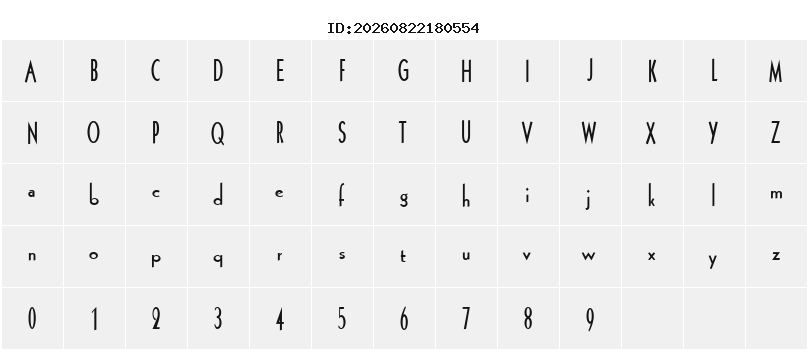
• Font Name: Schlimeyer Book
• Full Font Name: Schlimeyer Book
About Schlimeyer Book.ttf
Schlimeyer Book.ttf is a modern, elegant sans-serif font designed for ultimate readability and visual harmony. Perfect for branding, headlines, web design, and print materials.